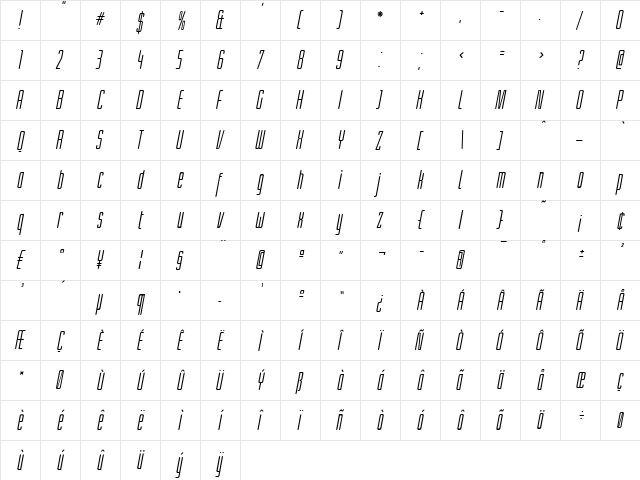
LinotypeLichtwerk Italic Font Preview
LinotypeLichtwerk Italic
LinotypeLichtwerk Italic Font Details
Design Context for LinotypeLichtwerk Typeface
LinotypeLichtwerk is a composed and adaptable typeface that performs quietly and consistently across a wide range of design contexts. Its italic angle brings a sense of urgency and motion to the letterforms.
Pro Tip: Use LinotypeLichtwerk for emphasis, pull quotes, and subheadings where its slanted energy can add rhythm to the layout.